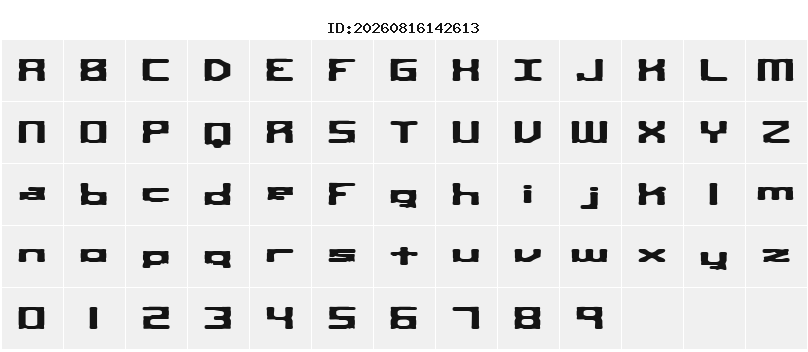
Square Route (BRK) Preview
• Font Name: Square Route (BRK)
• Full Font Name: Square Route -BRK-
About Square Route (BRK).ttf
Square Route (BRK).ttf is a modern, elegant sans-serif font designed for ultimate readability and visual harmony. Perfect for branding, headlines, web design, and print materials.